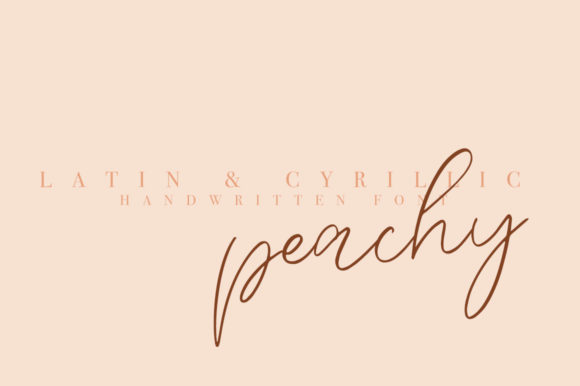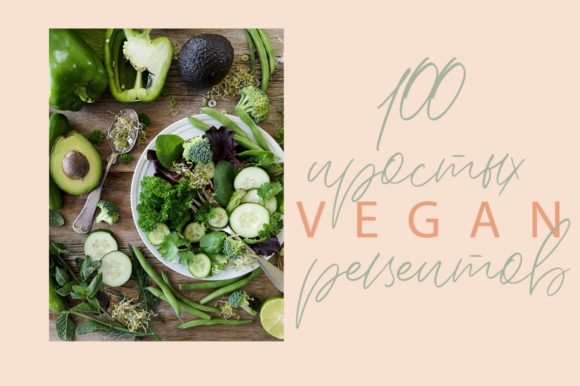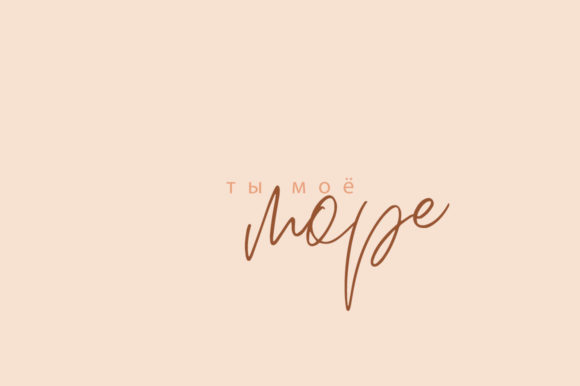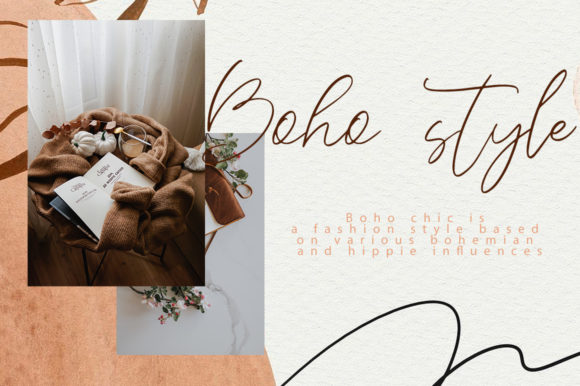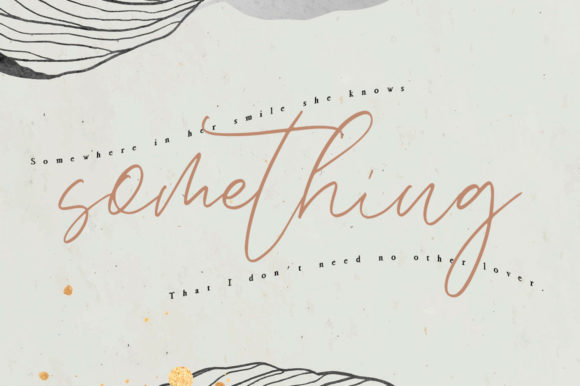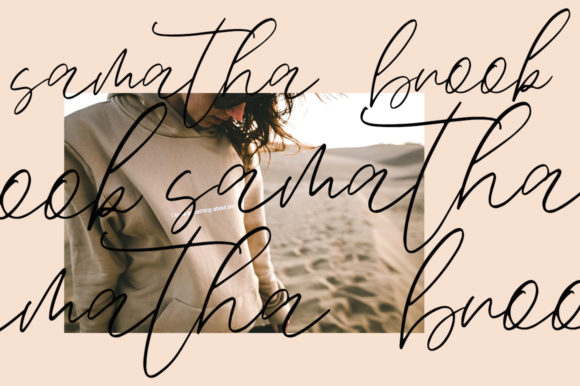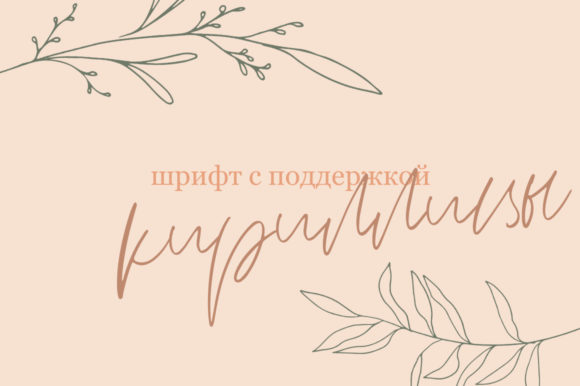
Peachy Font
About Peachy Font
Introducing Peachy: The Thin and Flowing Handwritten Font for Your Creative Projects
Experience the delicate beauty of Peachy, a thin and flowing handwritten font that adds a touch of elegance to your creative projects. Whether you’re working on logos, photography, watermarks, quotes, blog headers, posters, weddings, branding, fashion, apparel, invitations, or any other project, Peachy is the perfect choice to bring a sense of grace and sophistication.
Peachy’s thin and flowing style brings a sense of delicacy and charm to your designs. Its handwritten touch adds a personal and authentic feel, making your text exude a delightful and captivating energy.
As a font that boasts versatility and elegance, Peachy becomes the go-to choice for projects that demand a touch of refinement and creativity. Its thin strokes and flowing letterforms ensure that your work resonates with a sleek and stylish look.
Embrace the beauty of Peachy as you embark on your creative journey. Let it be the font that enhances your projects, adding a sense of elegance and sophistication in every endeavor.
As you explore the possibilities of Peachy, you’ll find it to be a font that enhances your designs with ease. Its thin and flowing style transforms your work, ensuring that your logos, photography, watermarks, quotes, and more leave a lasting impression.
So, let Peachy be the font that adds a touch of grace and beauty to your designs. Embrace its thin strokes and flowing style, and watch as your creations become truly elegant and captivating. With Peachy as your font of choice, your designs will resonate with a sense of refinement and creativity, captivating your audience and leaving a lasting impression. Embrace the beauty of Peachy and create projects that are truly stunning and unforgettable!